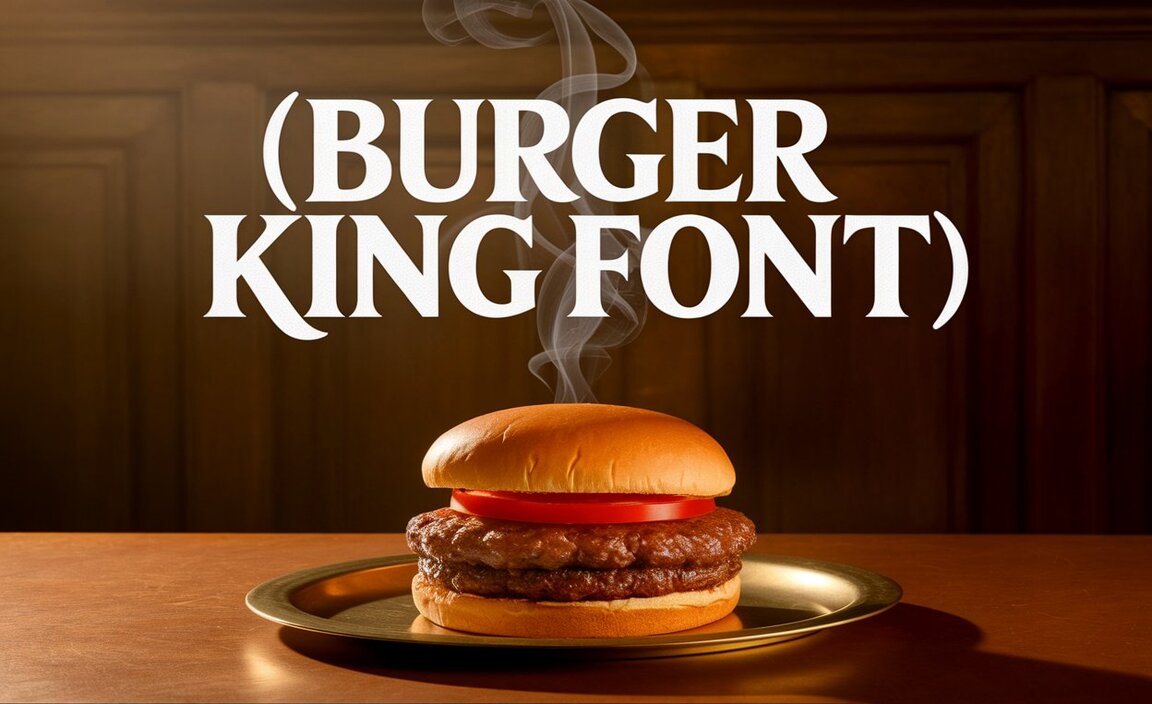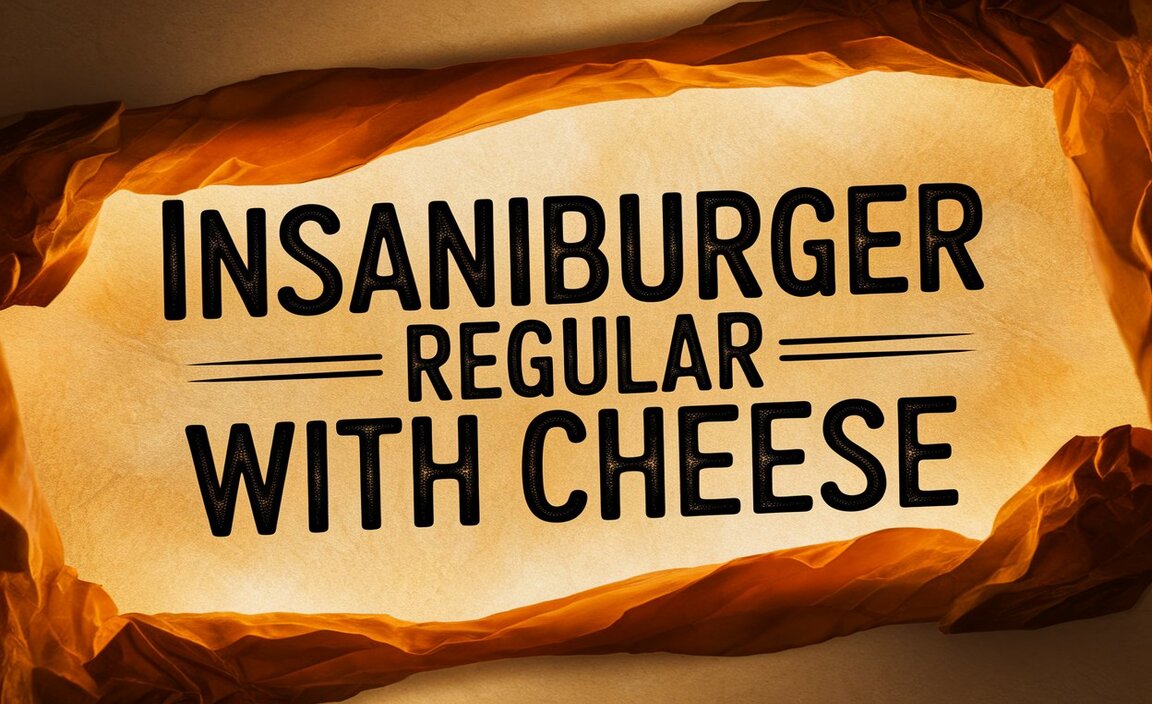
The Burger King Font, designed by Adam Nerland in collaboration with Sterling Brands, embodies the essence of the global fast-food giant. Founded in 1953 as Insta-Burger King in Jacksonville, Florida, the company rebranded as Burger King in 1955 under the leadership of David Edgerton and James McLamore.
Today, Burger King is part of Restaurant Brands International and headquartered in Miami, Florida. Its visual identity, particularly the logo and typography, is vital in communicating its brand heritage and unique appeal.
Type Of Burger King Font (Font Family)
The Burger King logo font has evolved with the brand, featuring distinct and iconic typography. Key fonts inspired by the logo include:
- Insaniburger Regular
- Insaniburger with Cheese
Using Occasions Of This Font
The Burger King Font’s versatility makes it ideal for numerous branding and promotional purposes:
- Logo Design: Used prominently in Burger King’s logo, it emphasizes brand recognition.
- Menu Boards: Adds clarity and style to fast-food menus, including items like Whopper burgers, chicken sandwiches, and chicken fries.
- Packaging: Enhances the visual appeal of Burger King’s iconic menu items and takeaway designs.
- Digital and Print Media: It reinforces the brand’s identity in advertisements and menu boards.
Burger King Font Found In Use
The Burger King Font excels in multiple design scenarios, such as:
- Global Branding: Represents the company’s brand heritage as a popular fast-food chain.
- Restaurant Signage: Found in Burger King locations worldwide.
- Promotions and Campaigns: Featured in new logo unveilings, menu item launches, and advertising.
Similar Fonts To Burger King
If you’re a fan of the Burger King Font, explore these similar typefaces for personal or commercial projects:
- Insaniburger Regular: Perfect for retro designs.
- Flame Typeface: For sleek and modern visuals.
- Custom Font Designs: Created for iconic branding like Burger King’s Whopper sandwich campaigns.
The Burger King Font blends creativity with a tribute to the brand’s rich history. Its bold and unique design encapsulates the brand’s global fast-food chain appeal, whether for logo creation, packaging, or advertising. With a character map supporting modern design needs, it’s an excellent choice for personal or professional projects inspired by Burger King’s logo font.
1.What Is The Burger King Font, And How Does It Reflect The Brand?
The Burger King Font, prominently featured in the Burger King logo, reflects the fast food chain’s bold, approachable, and appetizing brand image. Designed by Raphael Abreu in collaboration with Sterling Brands, the font highlights the brand’s heritage and its transformation from Insta-Burger King to a global fast-food chain. The typography is central to the brand’s logo font design, which has evolved over decades.
2.Can I Download Or Use The Burger King Font?
The Flame Typeface, introduced during the 2020 rebrand, is a custom font exclusive to Burger King Corporation and cannot be downloaded for public use. However, similar fonts like Insaniburger Regular are available online and mimic the look of older Burger King logo fonts. Many of these alternatives are free for personal use and are often employed in burger-themed designs and menu boards.
3.How Has The Burger King Font Evolved Over The Years?
The Burger King logo font has gone through several iterations since the brand’s inception in 1953. Early logos used bold and retro styles like Insaniburger Font to emphasize the brand’s vibrant personality. With the 2020 rebrand, the company introduced a sleek and modern typeface, Flame, designed to align with its focus on menu items like the Whopper burger, chicken fries, and chicken sandwiches while celebrating its brand heritage as a popular fast-food chain.
4.What Are The Best Use Cases For The Burger King Font Or Similar Fonts?
The Burger King Font and similar fonts, like Insaniburger Regular, are ideal for:
- Food Branding: Perfect for logos and packaging for hamburger fast food restaurants.
- Menu Design: Enhances visibility and style in menu boards and promotional content.
- Advertising: Works for campaigns promoting signature food items like the Whopper sandwich.
- Creative Projects: Adds a bold and retro touch to logo designs and marketing materials for global brands.
5.Are There Any Tools To Create Designs Using The Burger King Font?
While the Burger King Font Generator is not officially available, you can use various online tools to replicate the style of Burger King’s logo font. These tools allow you to customize text with similar fonts like Insaniburger Font, create designs for fast food restaurants, and incorporate special characters for added flair. Such platforms are widely used for projects involving food branding and promotional materials.